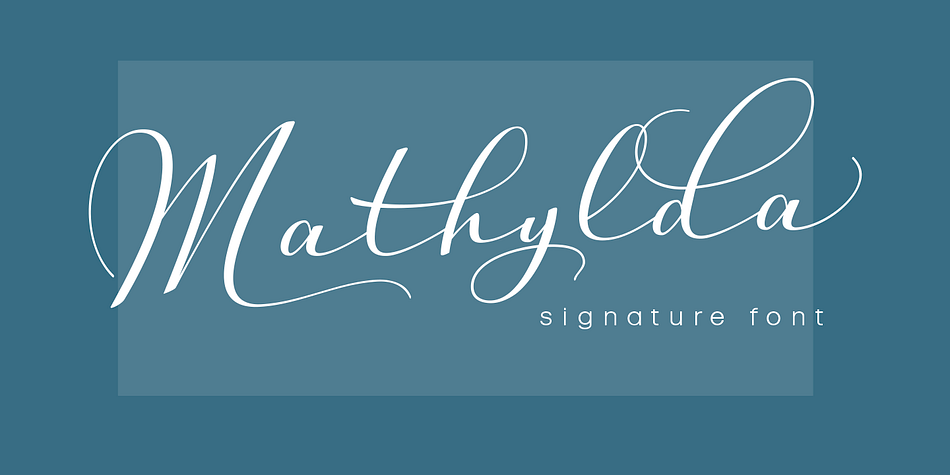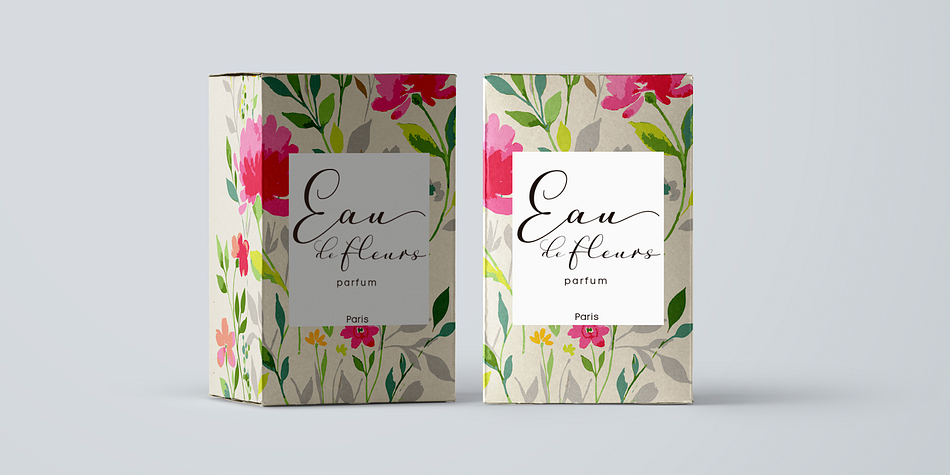
Mathylda Script
Designed by Carine de Wandeleer, Mathylda Script is a modern calligraphy and script font published by Eurotypo.
Mathylda Script is an elegant and youthful handwritten calligraphic font with thin and thick strokes depending on the inclination of the pen. It has many stylistic variations, swashes and ligatures. Mathylda will allow you to create elegant works.
Mathylda Script font is the great choice for any project from logos, magazines and book covers, children’s material, fashion, headlines, cards, posters, websites, packaging and, basically, anywhere you want.